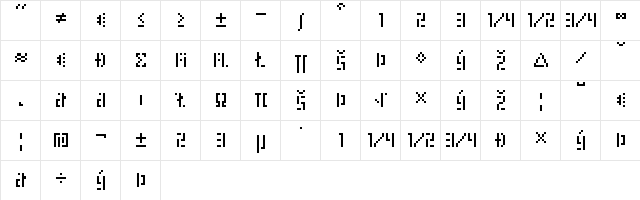
Eboy TNTBetaExpert Font Preview
Eboy TNTBetaExpert
Eboy TNTBetaExpert Font Details
| Style | TNTBetaExpert |
Design Context for Eboy Typeface
Eboy is a composed and adaptable typeface that performs quietly and consistently across a wide range of design contexts.
Dating back to 1998, this typeface is available in OpenType (OTF) format.